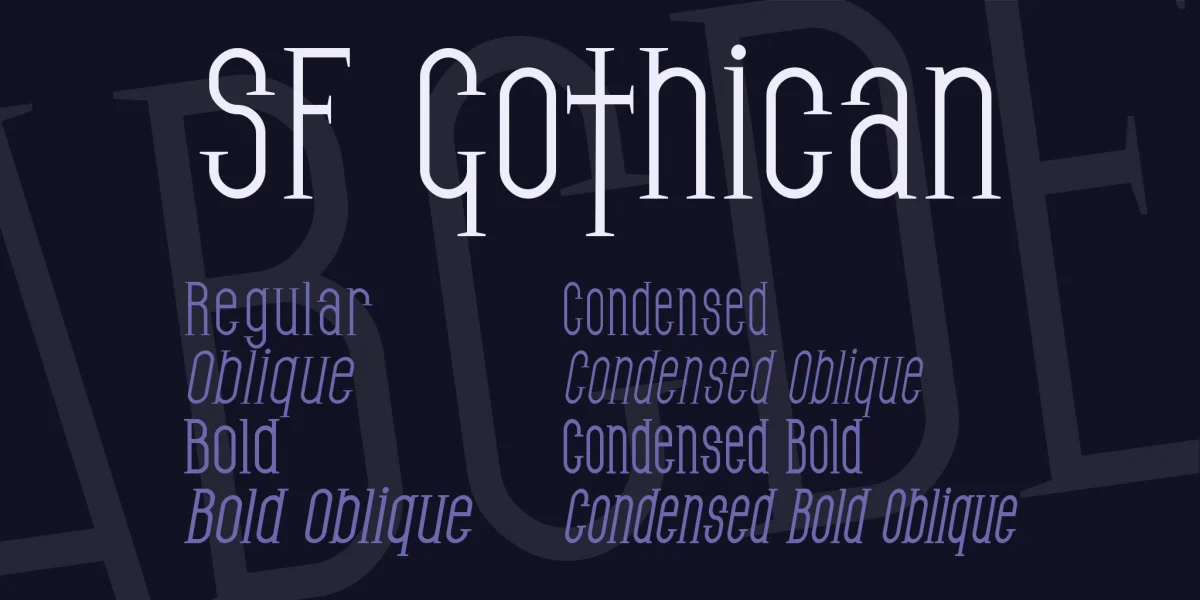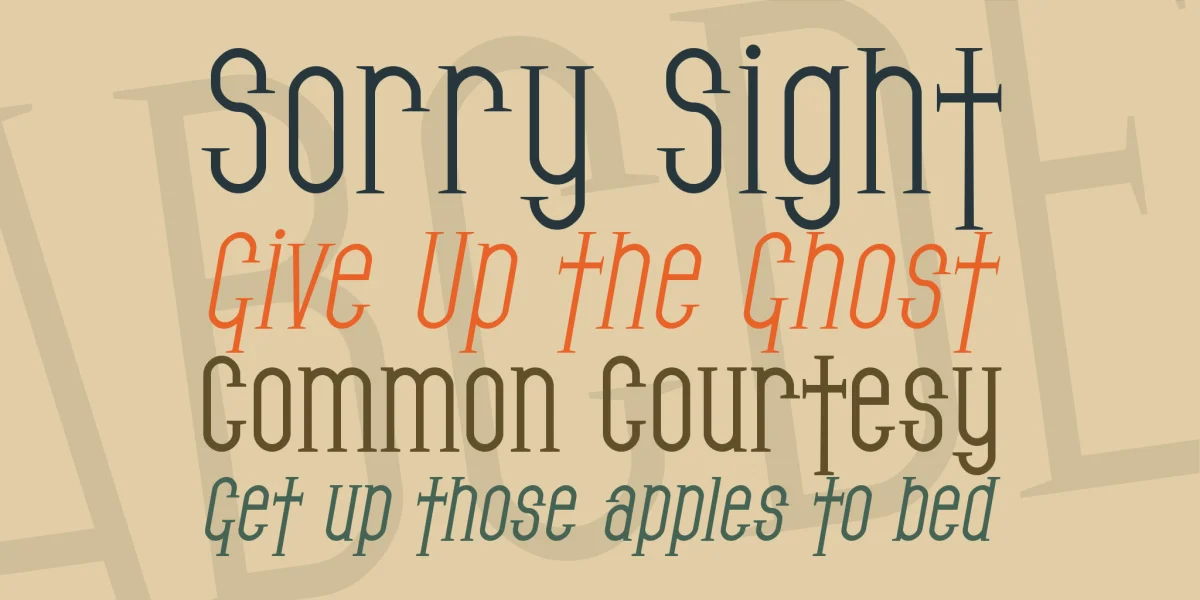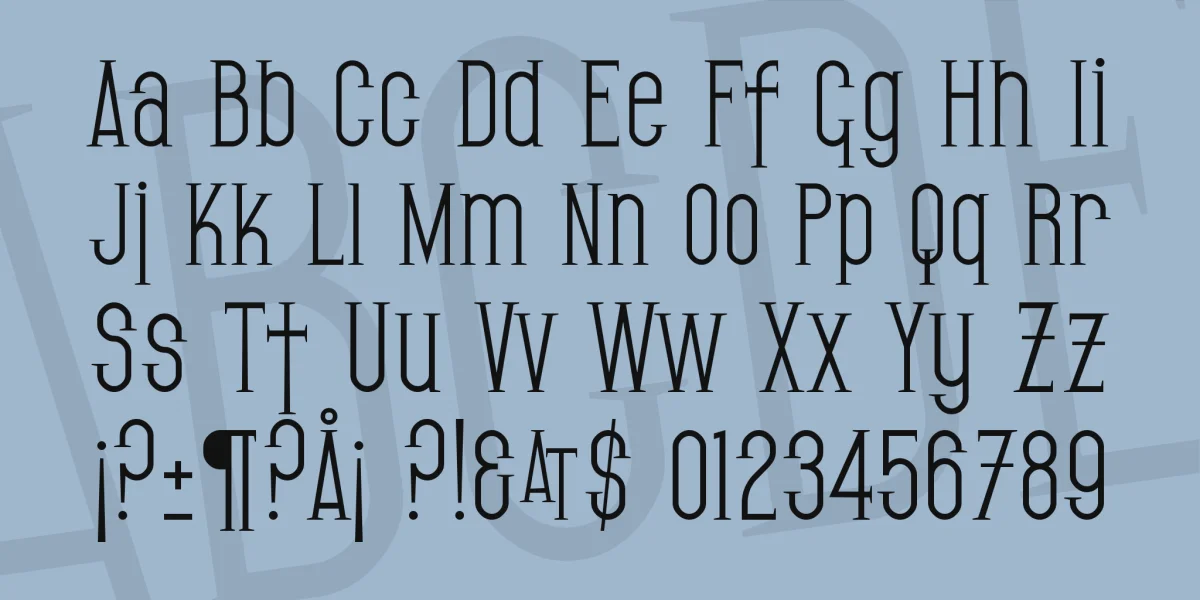
A dark and sinister font that looks like it came from Transylvania, SF Gothican contains lowercase and uppercase letters, numbers, punctuation, and accented characters.